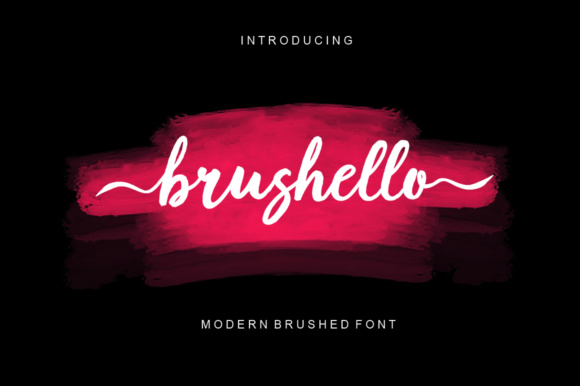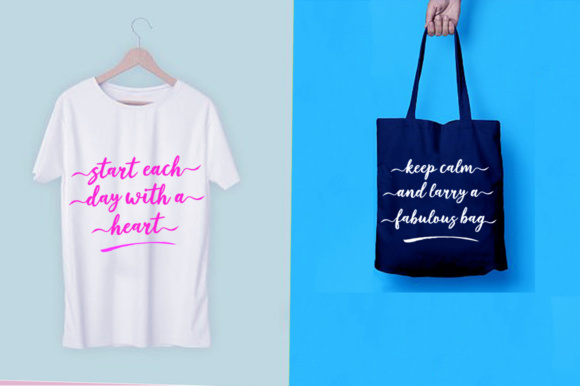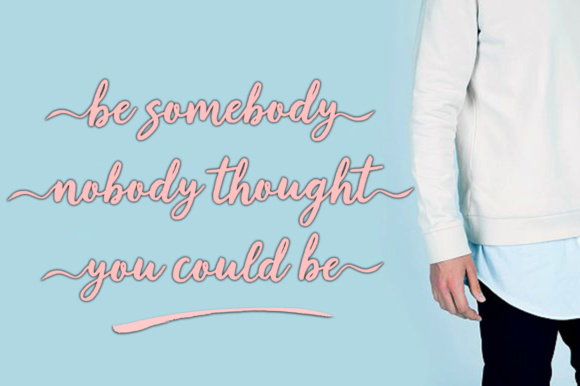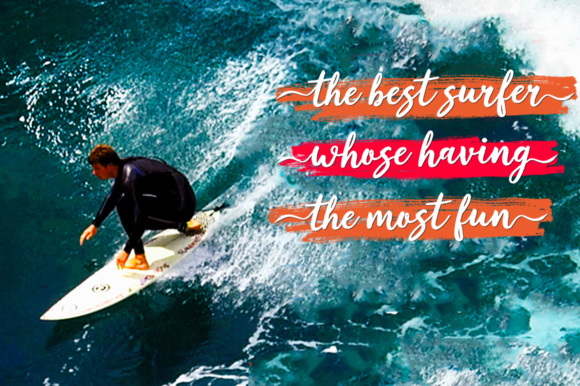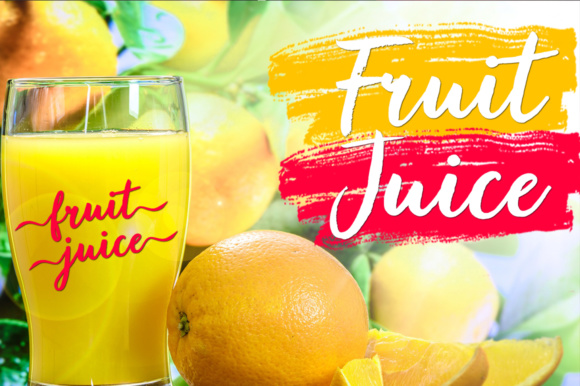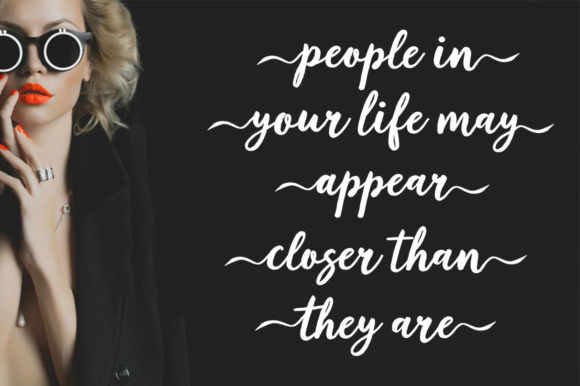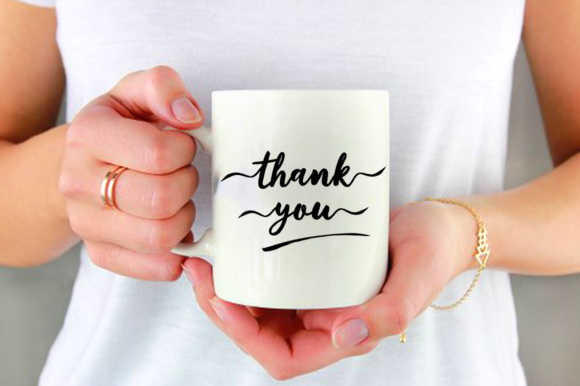
Brushello Font
About Brushello Font
The Brushello is a textured brush font. It provides several ligatures and additional swashes, as well as a contemporary approach to natural handmade designs with irregular baselines.